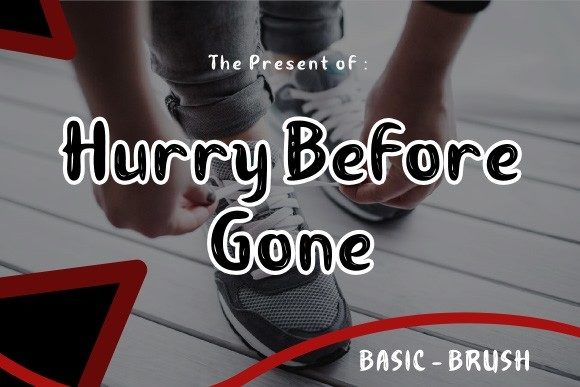
**Introducing Hurry Before Gone: The Display Font That Will Make Your Designs Pop!**
Are you looking for a font that will add a touch of fun and excitement to your next design project? Look no further than Hurry Before Gone, the latest display font from Zkhai Creative Studio.
Hurry Before Gone is a cool and bubbly font that is perfect for adding a touch of personality to any project. Whether you're creating a logo, a website, or a social media post, Hurry Before Gone will help you make a statement.
With its playful and energetic style, Hurry Before Gone is sure to capture attention and leave a lasting impression. It's the perfect font for adding a touch of fun to any project, and it's sure to become a favorite for designers of all levels.
**Here are just a few of the things you can do with Hurry Before Gone:**
* Create eye-catching logos that will make your brand stand out
* Design stunning websites that will keep visitors engaged
* Create social media posts that will get people talking
* Add a touch of fun to any design project